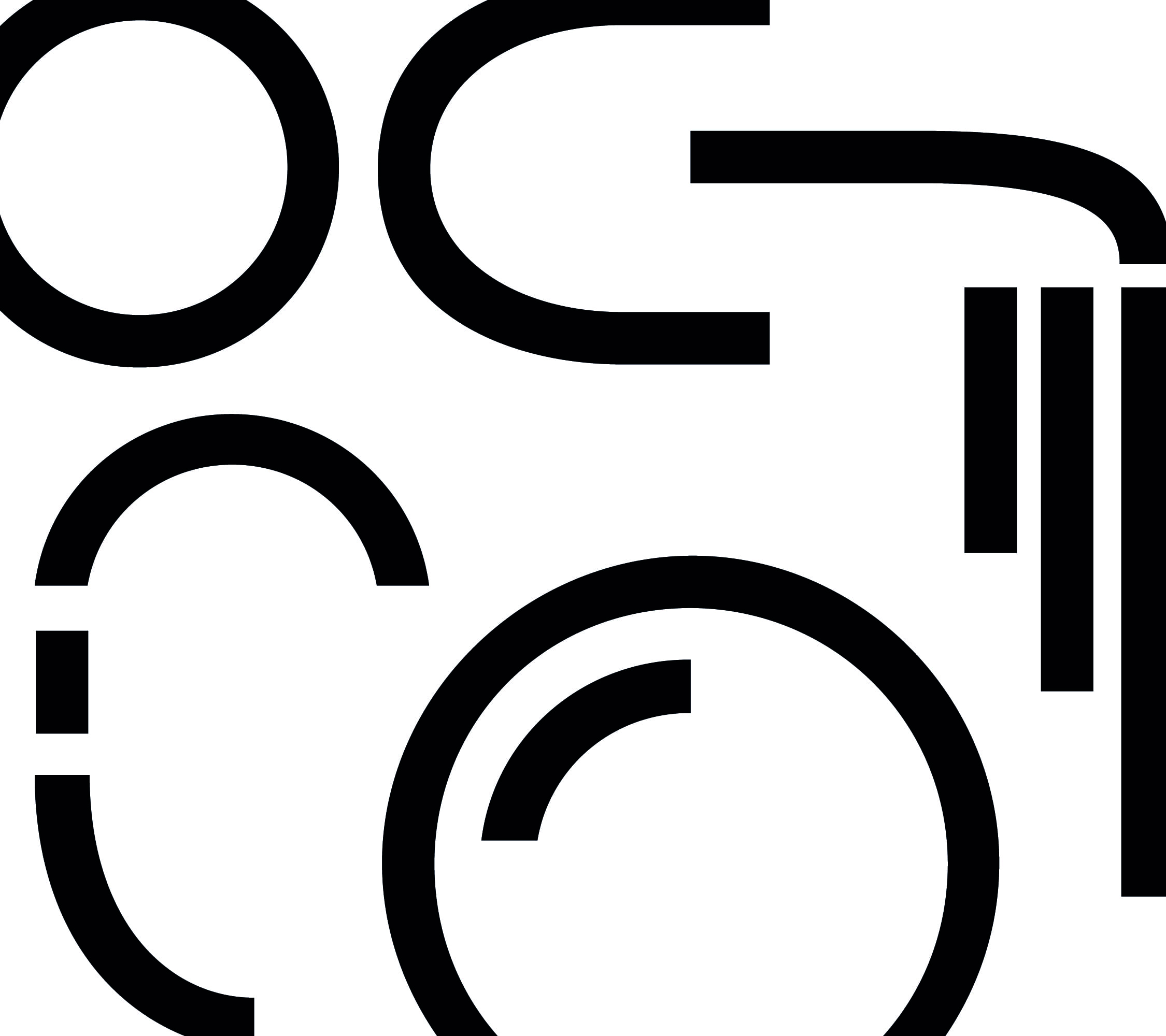
'Tenant' combines modernist principles with contemporary influences, aiming to replicate the essence of 1950s prefabricated homes. The goal was to create a typeface that is functional and uniform, whilst still containing unique elements that represent the community of Excalibur Estate. It includes visual components gathered from the structure itself, but essentially aims to convey the structural concept of the building. Simple, blunt, and unembellished, 'Tenant' was produced to promote this relic of a post-war decade, a symbol of a close-knit community. The typeface carries the name of the entity that allowed these structures to outlive their initial purpose and the government's expectations: the people that made Excalibur their home.